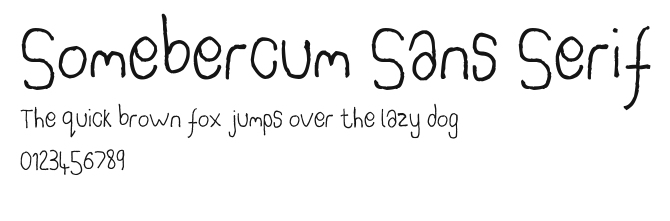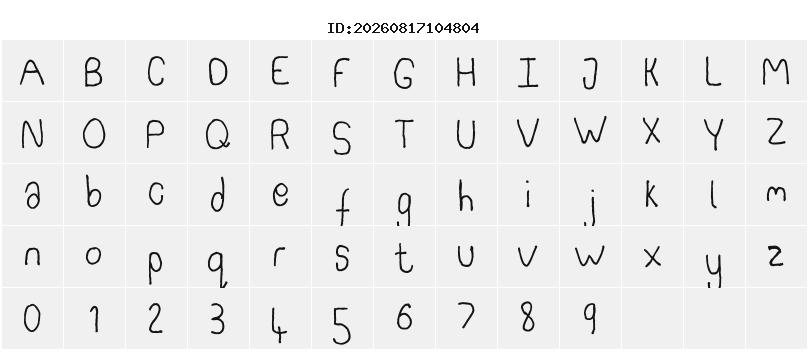
Somebercum Sans Serif Preview
• Font Name: Somebercum Sans Serif
• Full Font Name: Somebercum Sans Serif
• PostScript Name: SomebercumSansSerif
About Somebercum Sans Serif.ttf
Somebercum Sans Serif.ttf is a modern, elegant sans-serif font designed for ultimate readability and visual harmony. Perfect for branding, headlines, web design, and print materials.